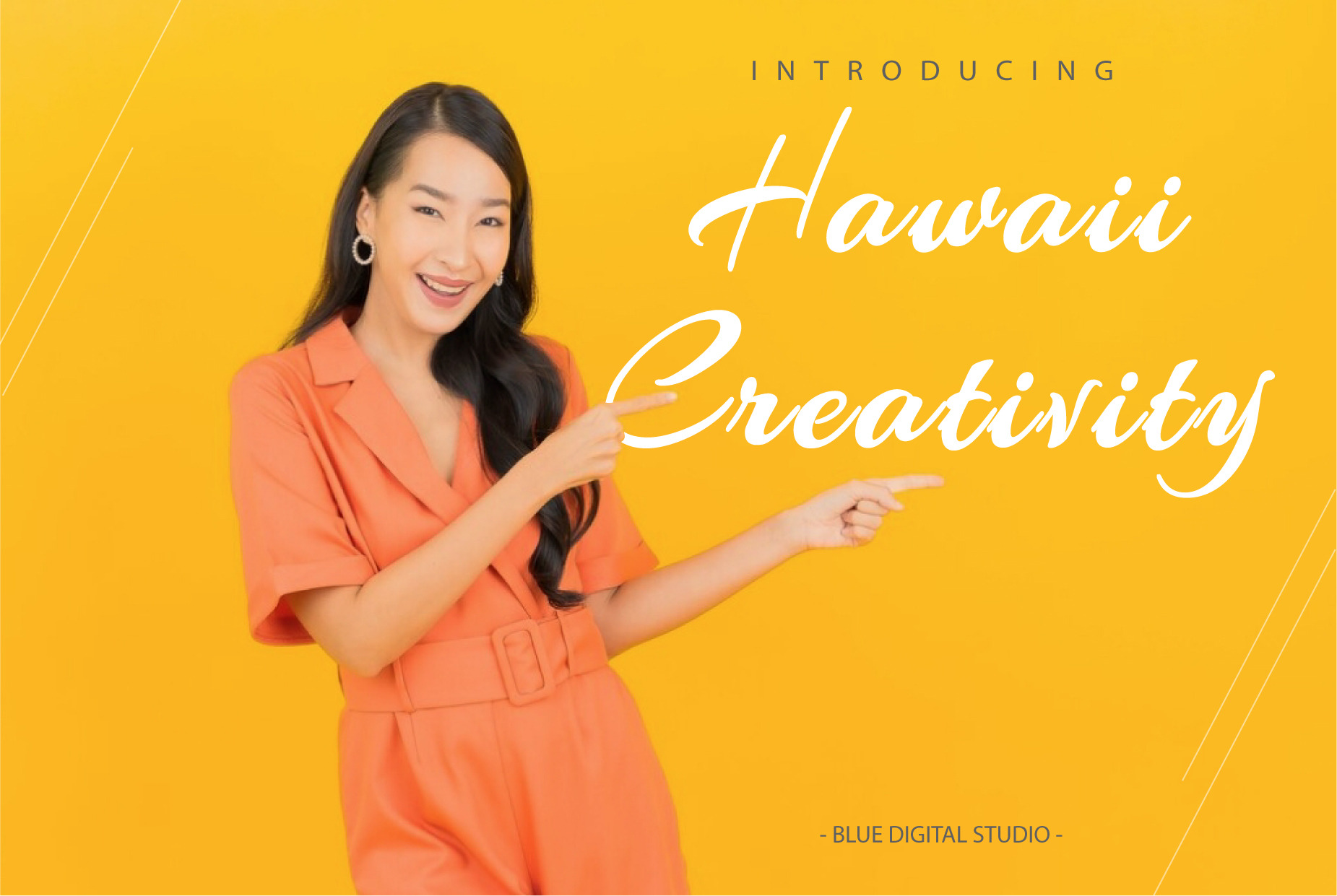
Hawaii Creativity Script Font
Bring your ideas to life with Hawaii Creativity Script Font, a stylish and versatile script typeface designed for headlines, logos, branding, and eye-catching short text. This modern yet vintage-inspired script font blends elegance, creativity, and readability, making it perfect for a wide range of design projects, digital content, and print materials.
Whether you're working on branding, advertising campaigns, social media graphics, Instagram quotes, T-shirt designs, website headers, packaging, invitations, or vintage-style layouts, this handwritten script font will give your work a unique, artistic, and professional look.
- Elegant Script Typeface with a modern & vintage feel
- Perfect for branding, logo design, and social media content
- Adds a handwritten, creative, and stylish touch to any project
- Ideal for both digital and print design
- Complete Character Set: Uppercase, lowercase, numerals, punctuation, symbols, and functional glyphs
- Multilingual Support: Accented characters included for global use
- Branding & Logo Design
- Social Media Graphics & Instagram Quotes
- T-shirt Designs & Merchandise
- Website Headers & Blog Design
- Packaging, Labels & Invitations
- Posters, Flyers & Editorial Layouts
- Modern & Vintage Typography Projects